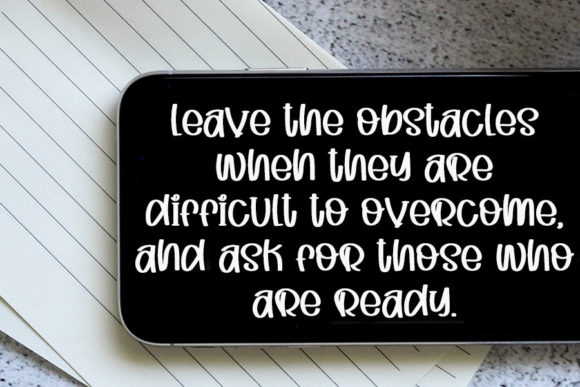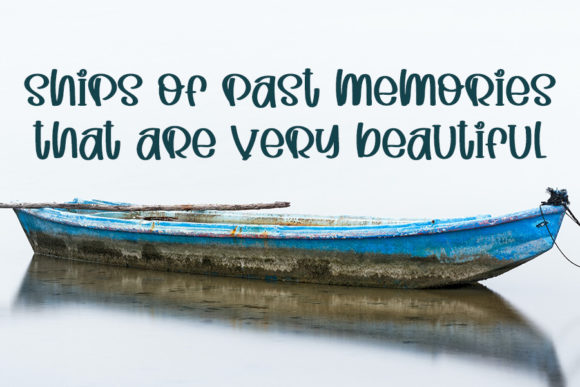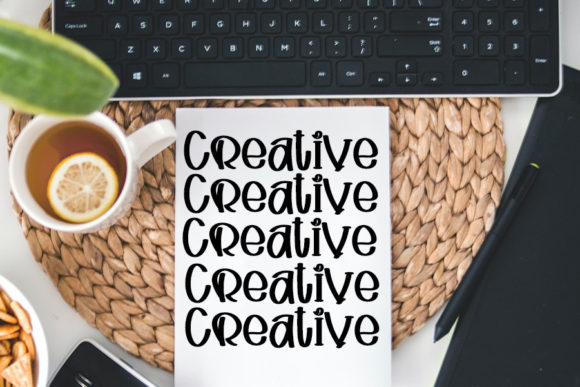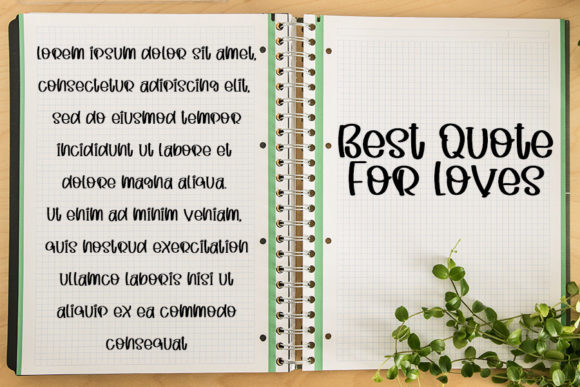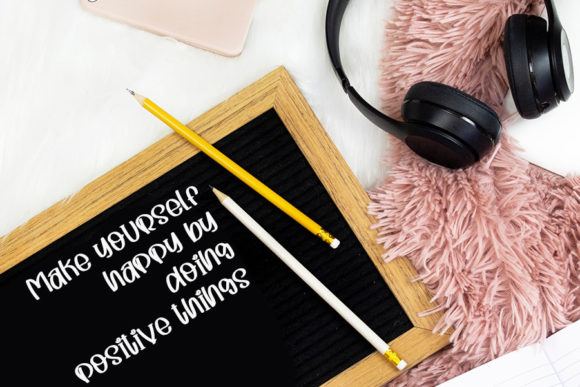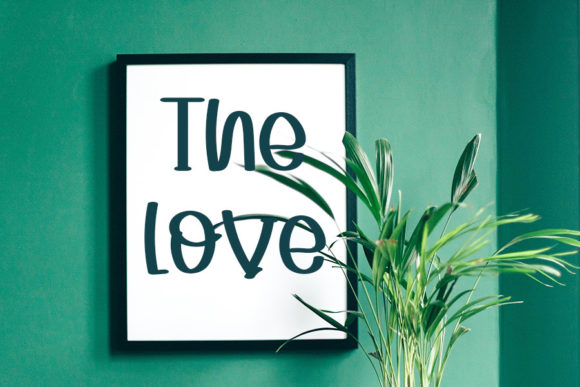
Introduction to Fishing Journey Font
Have you ever stared at a blank canvas, feeling the pressure to create something truly special? As designers, we’ve all been there – waiting for that spark of inspiration to strike. For me, it was a lazy Sunday afternoon, sipping coffee and browsing through design resources online. That’s when I stumbled upon the Fishing Journey Font – and my creative world was turned upside down.
This charming script font has a way of making any design project feel like a treasure hunt. With its well-rounded letters and distinct style, it’s no wonder the Fishing Journey Font has become a go-to choice for designers. Its versatility is unmatched, making it perfect for everything from wedding invitations to social media graphics. And the best part? It’s available for free download, with a transparent background that makes it easy to use in any high-quality design project.
Whether you’re a seasoned pro or just starting out, the Fishing Journey Font is an invaluable addition to any design arsenal. Its unique style and high-quality design make it a valuable resource for any creative project – and with its free download, there’s no excuse not to give it a try.
Fishing Journey Font
- High-quality font design suitable for various creative projects, including posters, logos, and websites.
- Perfect for designers who want to add a touch of whimsy and adventure to their creative projects, with its unique fishing-inspired theme.
Honest Review: Fishing Journey Font
I recently stumbled upon the Fishing Journey Font, a design resource that caught my attention. The font’s unique style and versatility made me curious about its potential uses.
What works well about this font is its ability to be used in various creative projects, from web design to print materials. The font’s high quality and unique characters make it a great addition to any design portfolio. Additionally, the free download option is a major plus for designers on a budget.
However, there are some limitations to consider. The font’s file size is relatively large, which may be a concern for designers working with limited storage space. Additionally, the font’s unique style may not be suitable for all design projects.
Overall, I was impressed with the Fishing Journey Font’s potential and versatility. While it may not be perfect, it’s a valuable addition to any designer’s toolkit. With a little creativity, this font can help bring your design projects to life.
Fishing Journey Font
The Fishing Journey Font is a high-quality design resource ideal for creative projects. This font features a transparent background, making it perfect for overlaying on images or videos.
Tips for Getting the Most Out of the Fishing Journey Font
Experiment with different font sizes and styles to achieve the desired look. Use the font in combination with other design elements to create a visually appealing design.
The Fishing Journey Font is ideal for creative projects such as graphic design, digital art, and marketing materials. Use it to create eye-catching titles, headings, and body text.